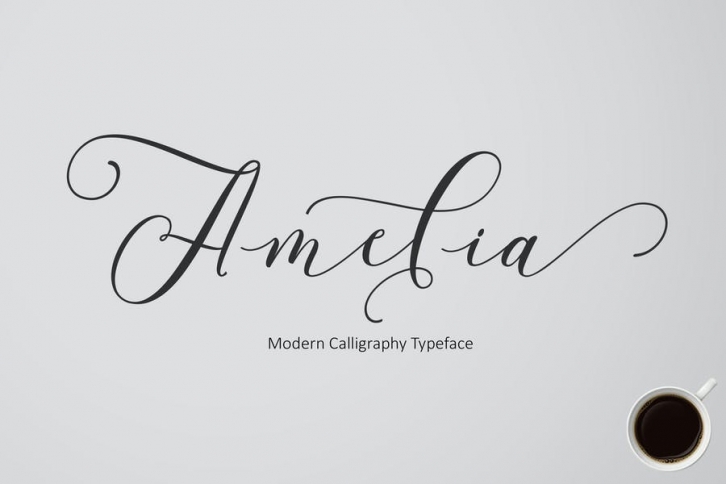
Amelia Script, hand lettered calligraphy Font with beautiful wave and natural flow. This fonts is the. have unique letter, with natural handdrawn style, and has a softer and smoother character with different connected all of characters.
Amelia Script also come complete with 466 glyphs and has given PUA unicode (special code font), This includes uppercase, lowercase, numerals, fractions, punctuations, multi lingual support. and most other glyphs is a variation which is parts of the OpenType features such as; Standart ligatures, Stylistic Alternates, Stylistic Sets, Swashes, and Initial. Also supports in pragram, Adobe Illustrator, Adobe Photoshop, Adobe InDesign, Corel Draw X version, Microsoft Word, Language Support : Albanian, Basque, Breton, Chamorro, Danish, Dutch, English, Faroese, Finnish, French, Frisian, Galician, German, Icelandic, Italian, Malagasy, Norwegian, Portuguese, SwedishThe Features of this fonts is: Standart ligatures, Stylistic Alternates, Stylistic Sets, Swashes and Initial
Features Basic Latin A-Z and a-z Numbers Symbols